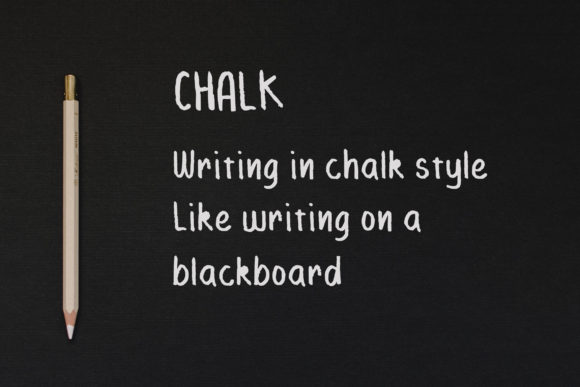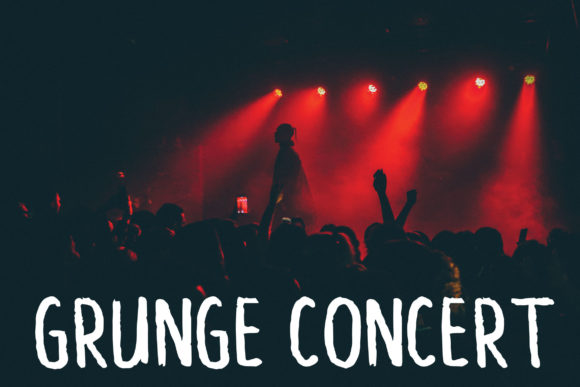
Miller Brush Font
db-ku.com - Script & Handwritten -- Miller Brush is a handwritten brush font perfect for logos, quotes, posters, playful lettering, clothing, and any other design that needs a unique touch. This font has the potential to become your favorite go-to font, no matter the occasion!